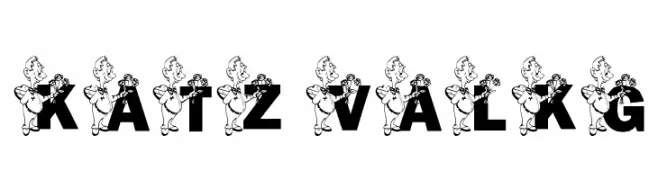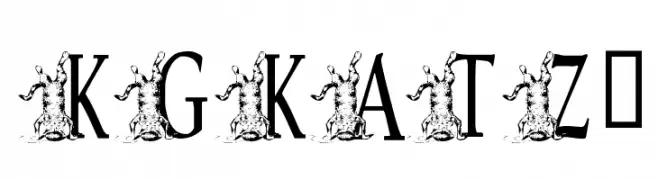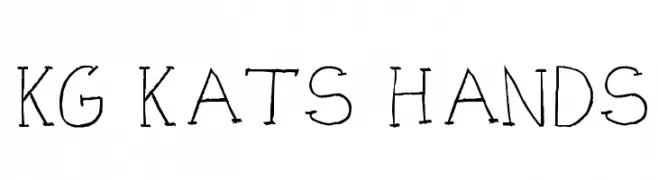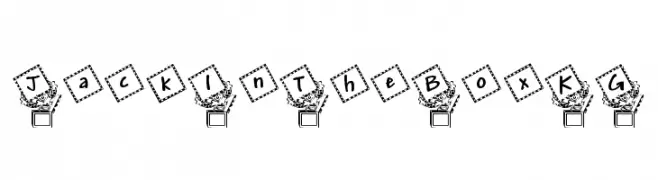
A whimsical font with mouse-themed uppercase and cheese-themed lowercase letters.
A whimsical font with each letter encased in a cartoon sheep, perfect for playful designs.
A bold, decorative font with cartoon figures, perfect for playful designs.
An ornate, decorative font with floral embellishments on each character.
A playful, hand-drawn font with quirky, irregular lines and decorative elements.
A whimsical font with characters integrated into each letter, perfect for playful designs.
A playful, whimsical font with letters in dotted squares, tilted for a dynamic look.
A playful, Easter-themed decorative font with outlined letters and festive graphics.
An ornate and decorative font with intricate uppercase and outlined lowercase letters.
A whimsical, Halloween-themed font with scarecrow silhouettes and hand-drawn style.